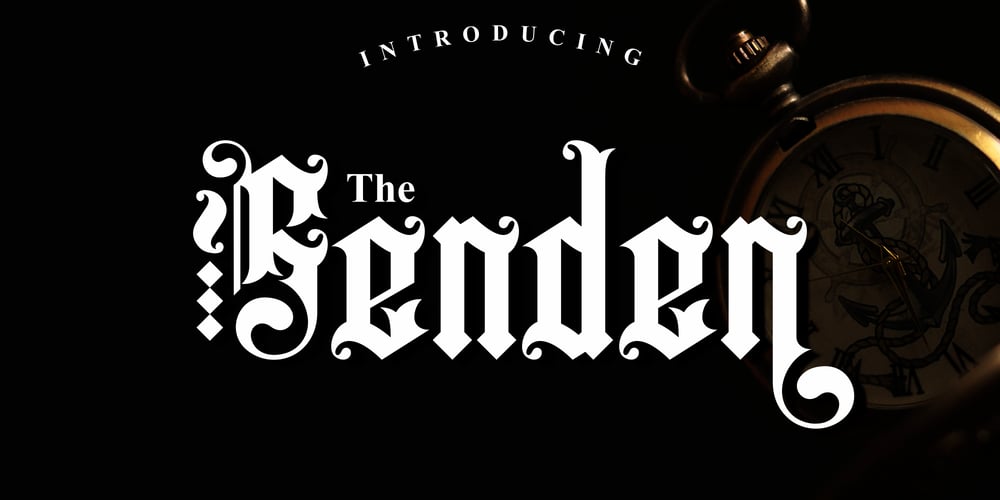
The Senden
The Senden font
The Senden Font Family was designed by Akhmad Afandhi and published by Evo Studio. The Senden contains 1 styles and family package options. The senden is a Cool Blackletter that has been in the making for months. There is a combined use of negative space to create contrast. Elements from High German, Old English, and many other styles are incorporated into this beautiful display font. The result is a manuscript that appears with a cleaner, more modern feel.